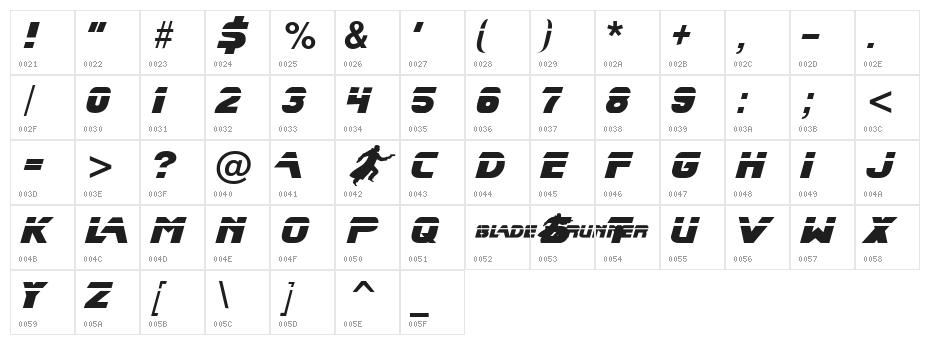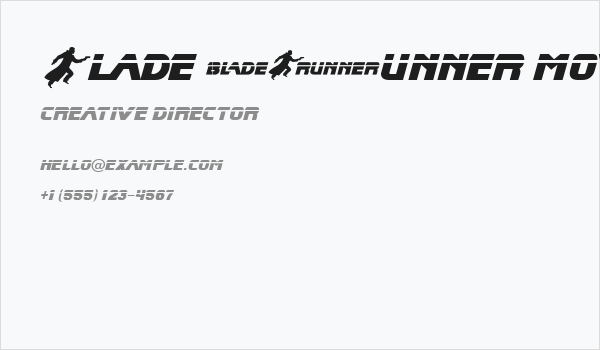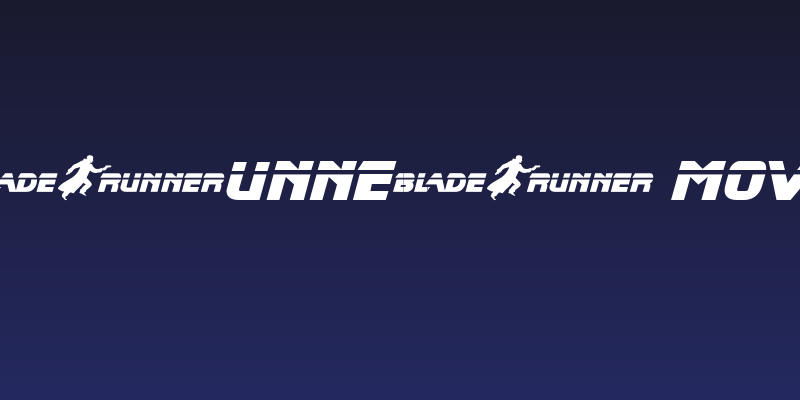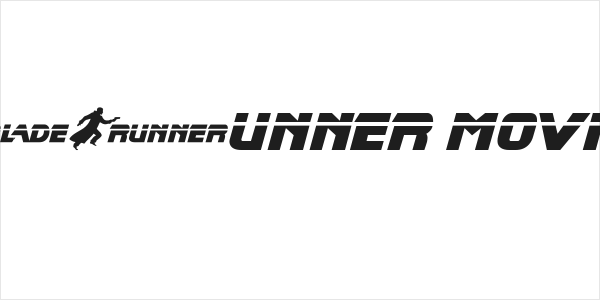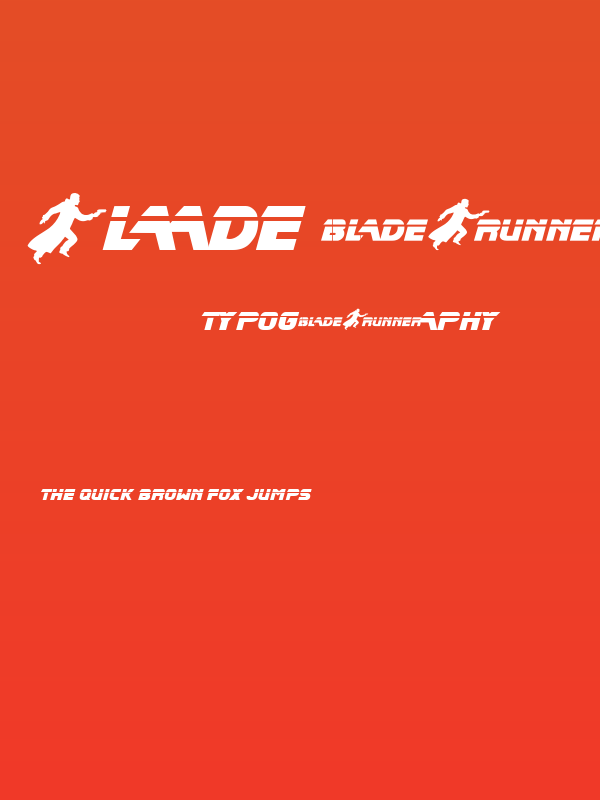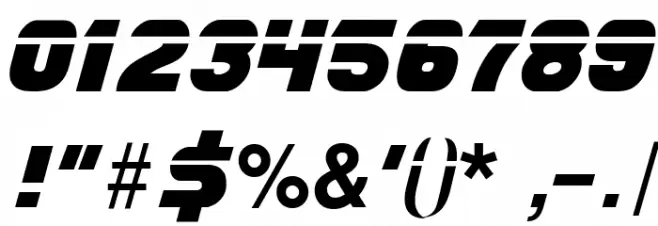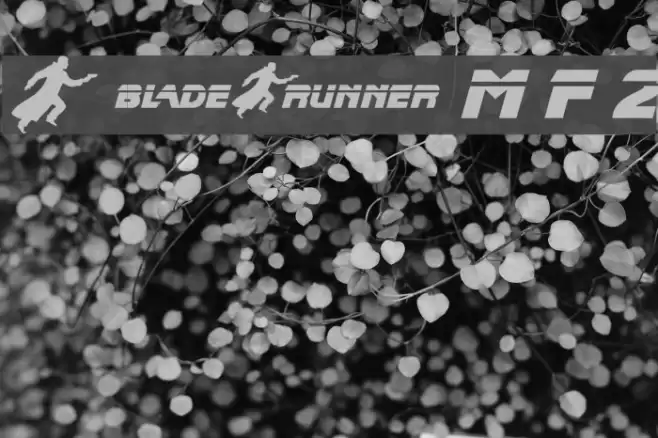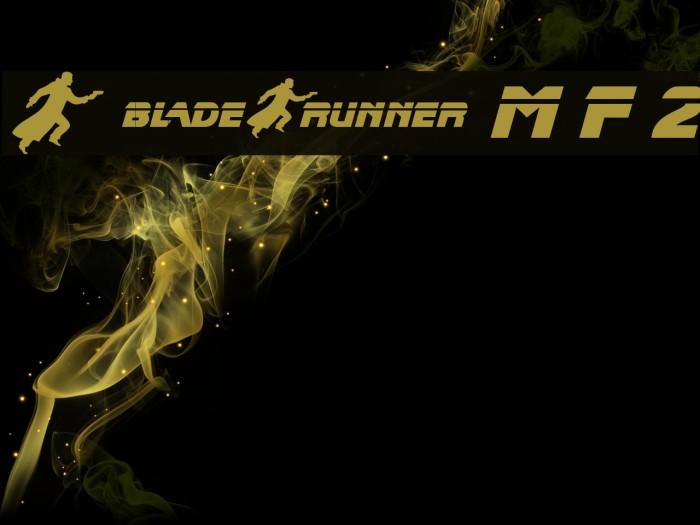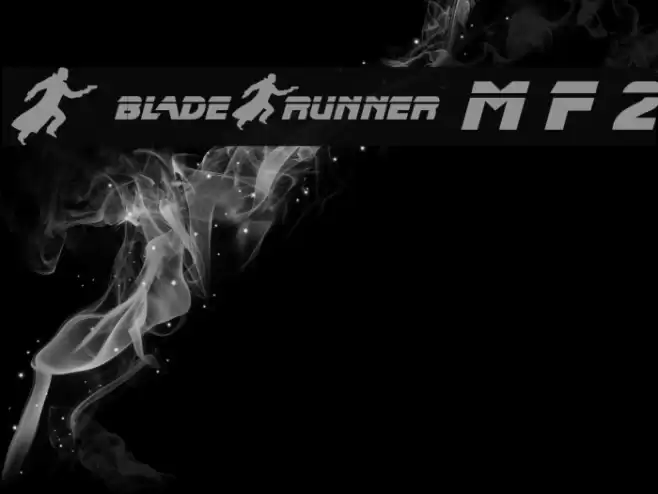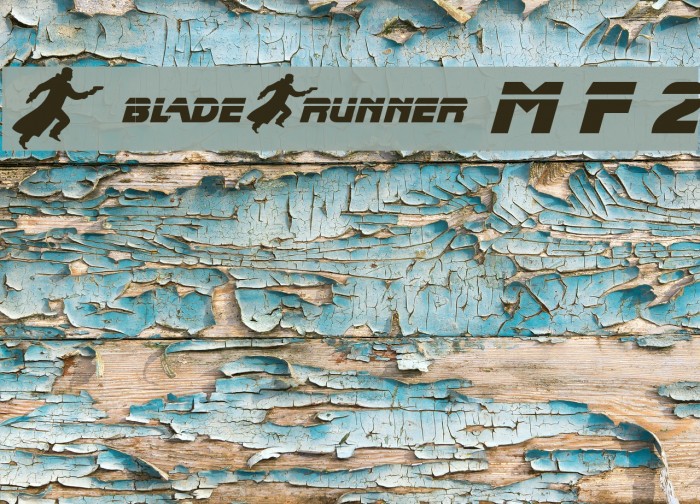
Blade Runner Movie Font 2 Font
Blade Runner Movie Font 2 Description
This font features a futuristic and dynamic design, characterized by sharp angles and a bold presence. The letters are slightly slanted, giving a sense of motion and speed, which is enhanced by the thick, solid strokes. The uppercase and lowercase letters maintain a consistent style, with a geometric and somewhat industrial appearance. The numbers and special characters follow the same design principles, ensuring uniformity across all glyphs. This font is particularly eye-catching and is designed to stand out, making it ideal for projects that require a strong visual impact.
| Proposed Projects | Ideal for movie posters, video game titles, sci-fi themed projects, and branding that requires a modern, edgy look. |